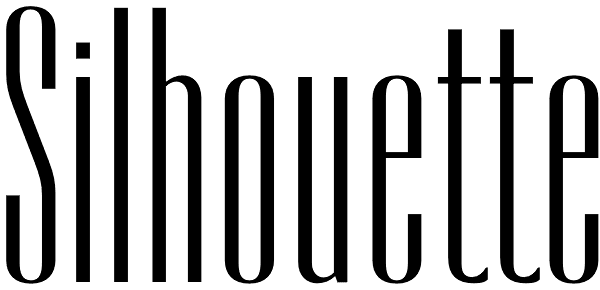
Silhouette LP
Silhouette is a revival of the Empire typeface of the 1930s. It was designed to appeal to the art deco aesthetic at that time. Silhouette's character set is expanded to include lowercase, figures and Western European accents.